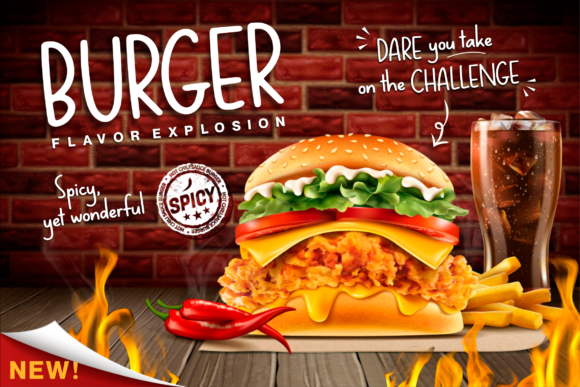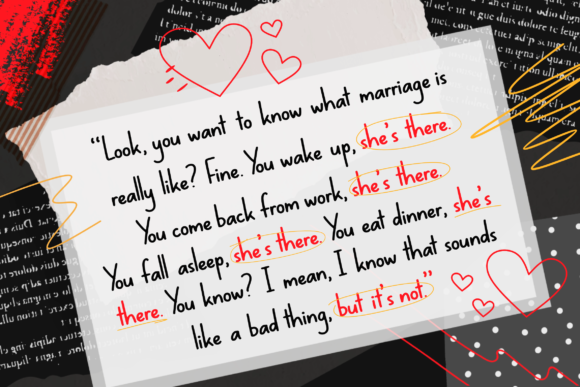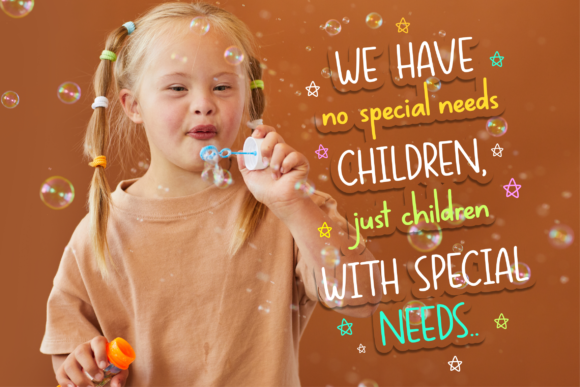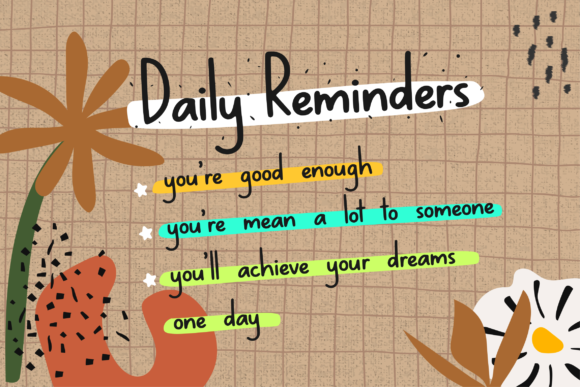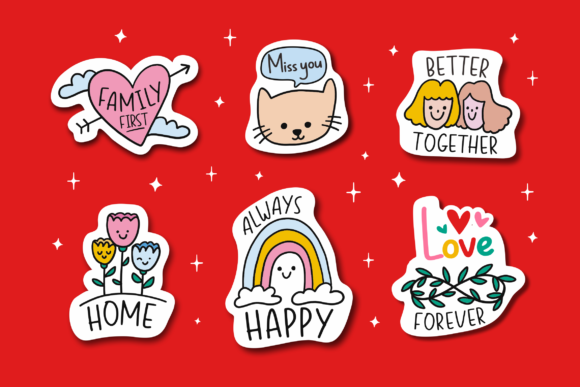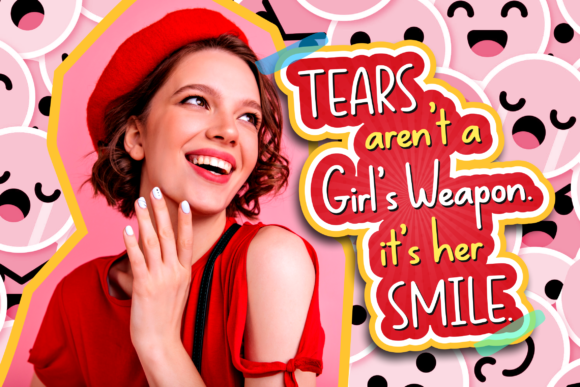
Introduction to Midspicy Font
Have you ever stared at a blank page, waiting for that perfect spark of creativity to strike? For designers, finding the right font can be the difference between a mediocre project and a masterpiece. It’s that moment when you finally discover a font that speaks to you, and you know you’ve found the perfect match. For many, that font is the Midspicy Font – a beautiful handwritten font that’s perfect for product packaging, branding projects, and social media posts.
What makes Midspicy Font so valuable is its unique blend of high-quality design and versatility. With its elegant, handwritten style, it’s perfect for adding a touch of sophistication to any creative project. Whether you’re working on a magazine, a wedding invitation, or simply want to express yourself above a transparent background, Midspicy Font is an excellent design resource to have in your arsenal.
Key Features of Midspicy Font
- High-quality design resource perfect for creative projects, offering a unique and stylish look.
- Transparent background allows for seamless integration with various design elements, giving you complete creative control.
- Midspicy Font comes in a single size, making it easy to use and integrate into your design projects.
- Resolution: High-resolution design, suitable for use in print and digital media, ensuring crisp and clear text.
- Unique characteristics: Midspicy Font features a bold, modern design with a touch of spice, making it perfect for adding a creative twist to your projects.
Honest Review: Midspicy Font
I recently had the opportunity to work with the Midspicy Font, and I must say, it’s a great addition to any designer’s toolkit. This font is perfect for those looking to add a touch of elegance and sophistication to their creative project.
- ✨ High-quality design: The Midspicy Font is incredibly well-designed, with crisp lines and smooth curves that make it perfect for printing or digital use.
- ✨ Transparent background: The font’s transparent background makes it easy to use on a variety of backgrounds, from simple to complex.
However, I did encounter a few limitations while using the font. Here are a few things to keep in mind:
- ⚠️ Limited font styles: While the Midspicy Font is well-designed, it’s limited in terms of font styles. If you’re looking for a font with a wide range of options, you may want to consider something else.
- ⚠️ Not suitable for very small text: Due to its high-quality design, the Midspicy Font can be difficult to read at very small sizes.
Overall, I’m impressed with the Midspicy Font. It’s a great design resource for anyone looking to add a touch of sophistication to their creative project. Just be aware of its limitations, and you’ll be all set for a great result.
Midspicy Font is ideal for creative projects, such as graphic design, branding, and advertising. Its unique style and high-quality design make it a valuable resource for designers and non-designers alike. Some common use cases include:
- Posters
Tips for Getting the Most Out of Midspicy Font
To get the most out of Midspicy Font, experiment with different font sizes, colors, and layer styles. Consider pairing the font with other design resources, such as images and graphics, to create a unique and eye-catching design. With a little creativity, Midspicy Font can take your design project to the next level.
Yes, the Midspicy Font features a transparent background, allowing you to easily integrate it into your design projects, even when using a high-quality image or background. This feature is particularly useful when working with complex design compositions.